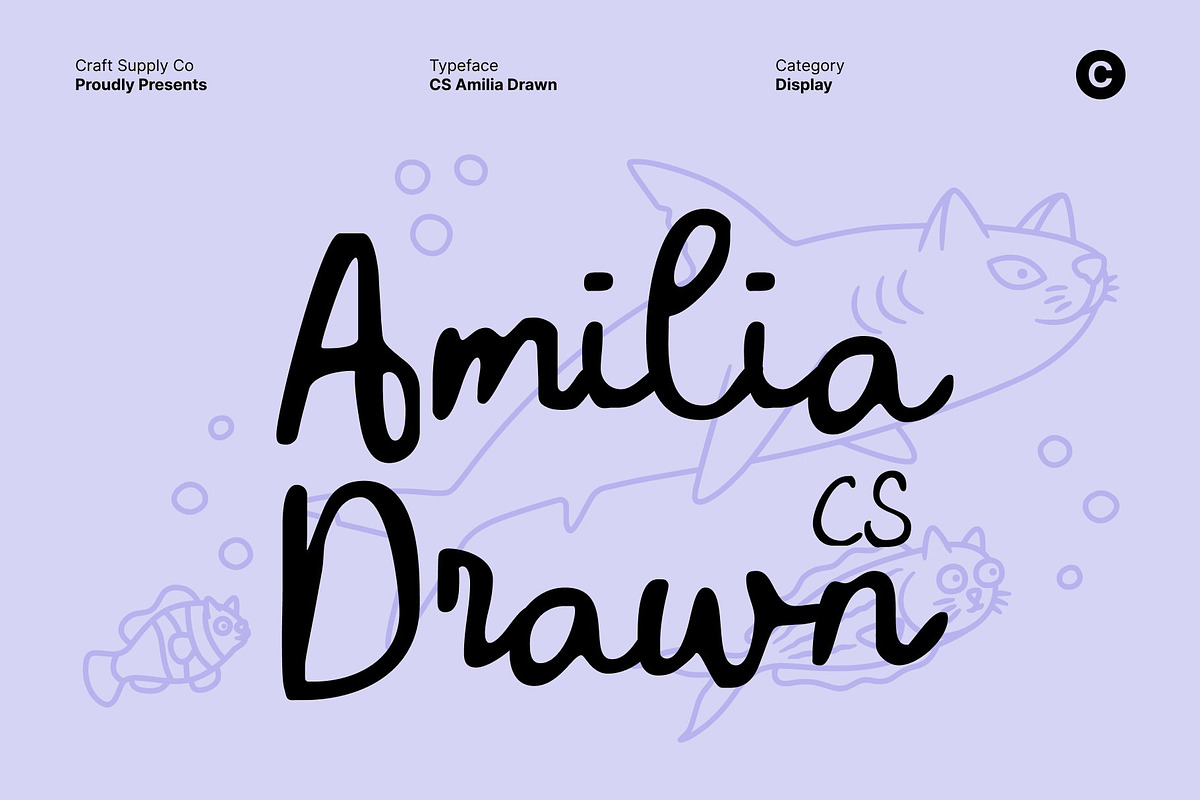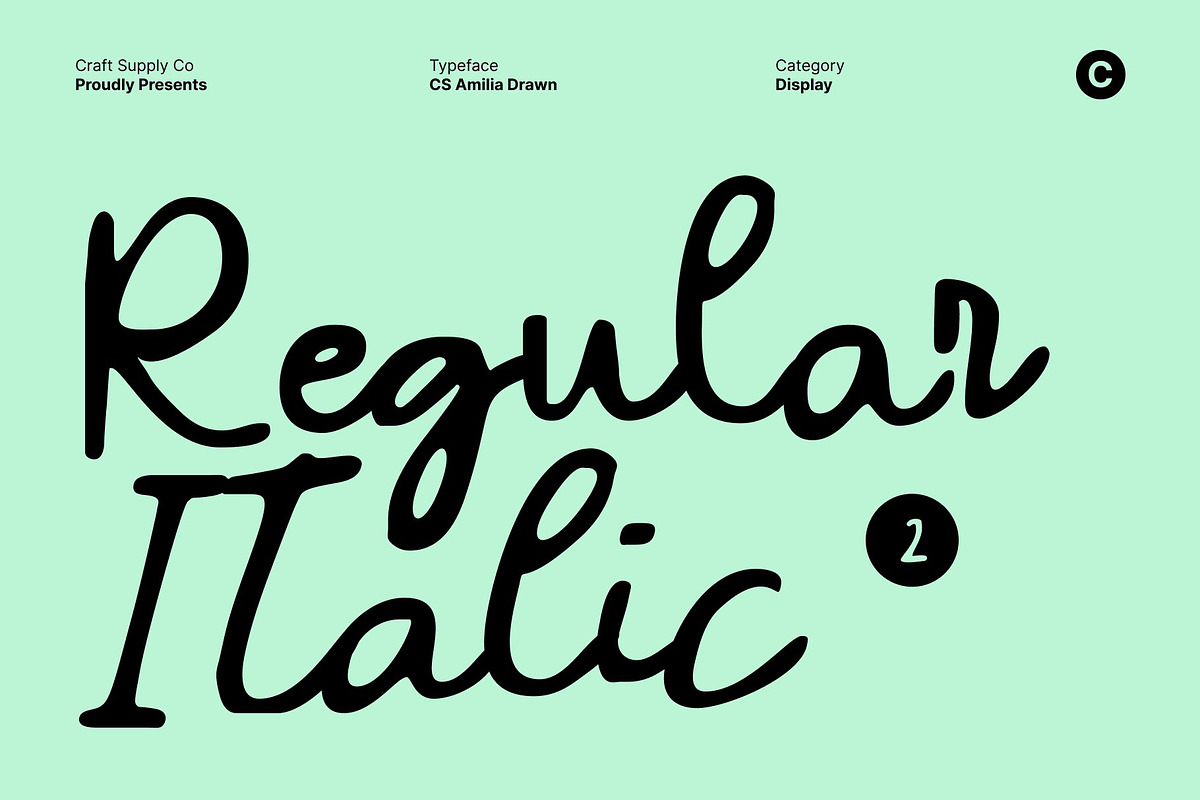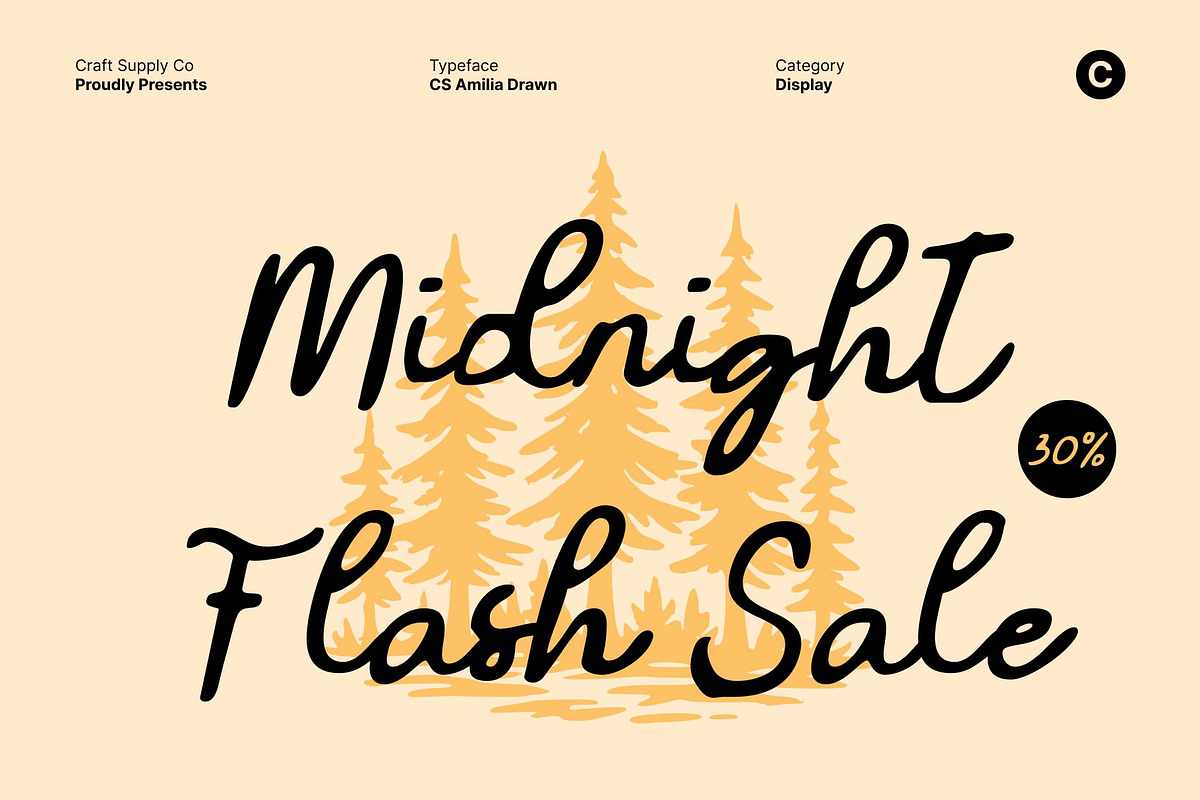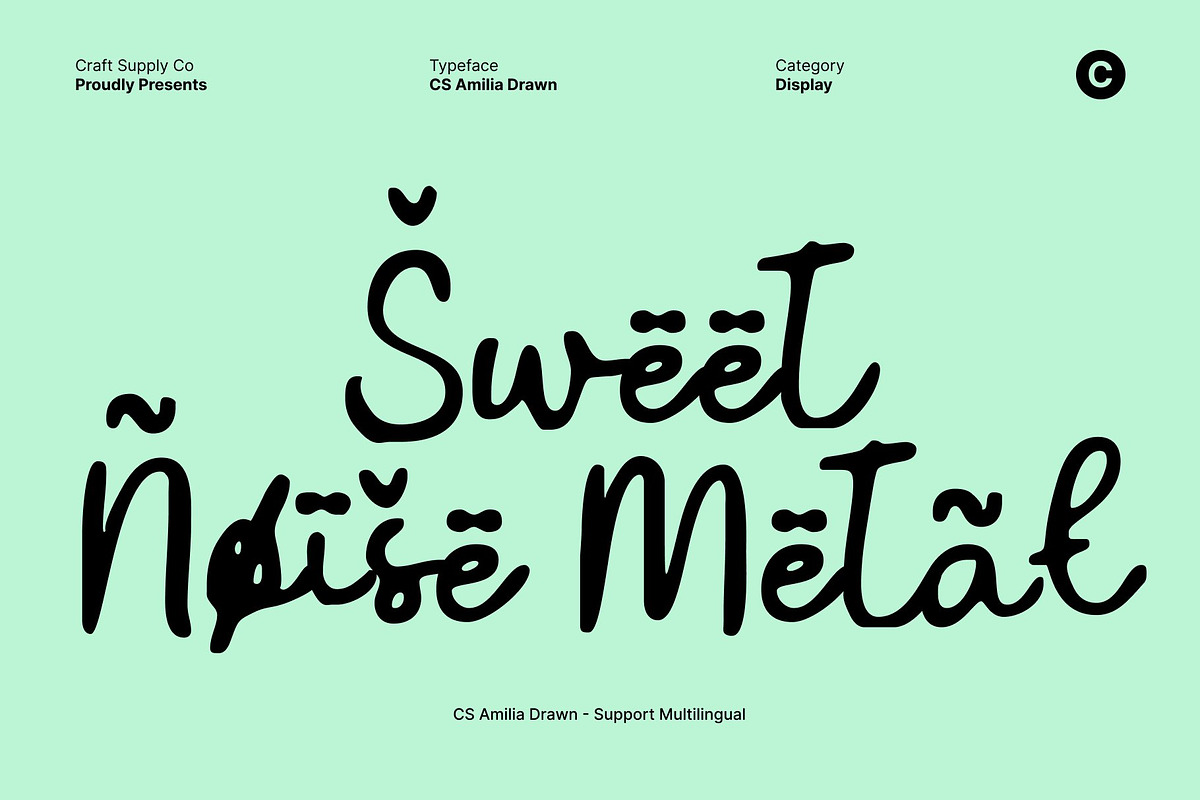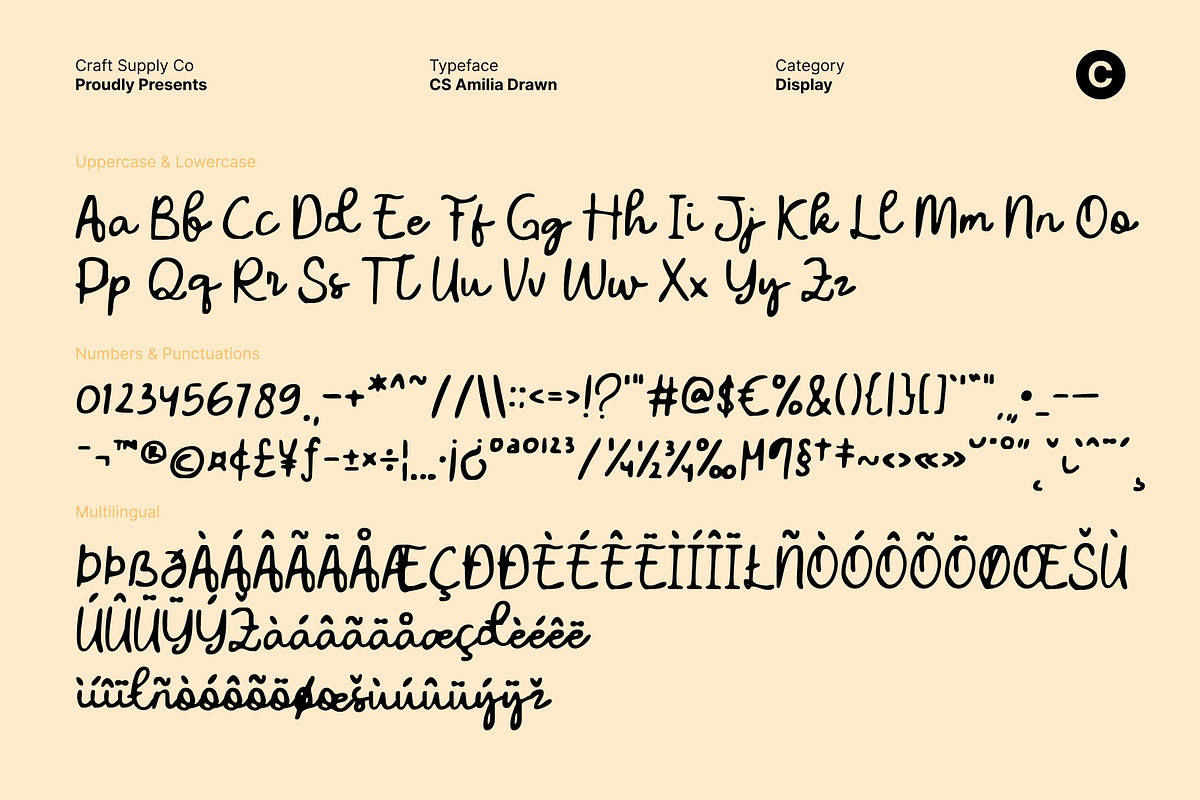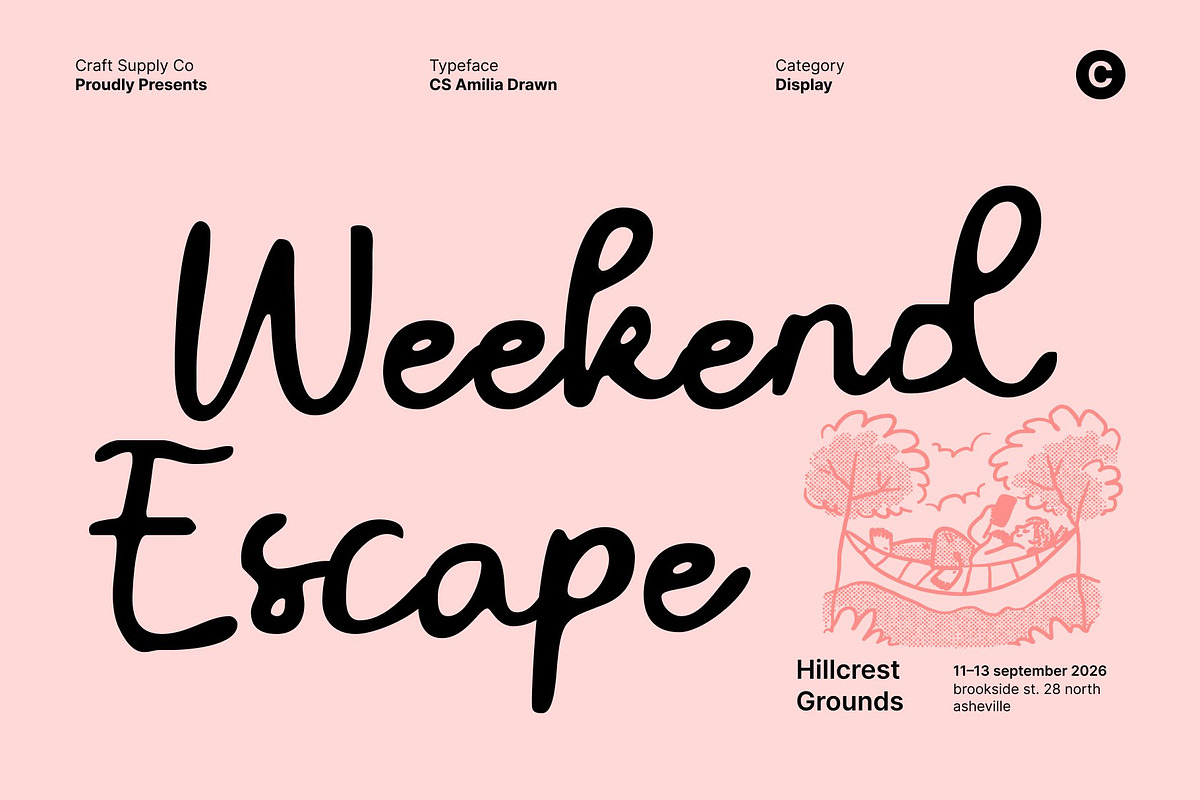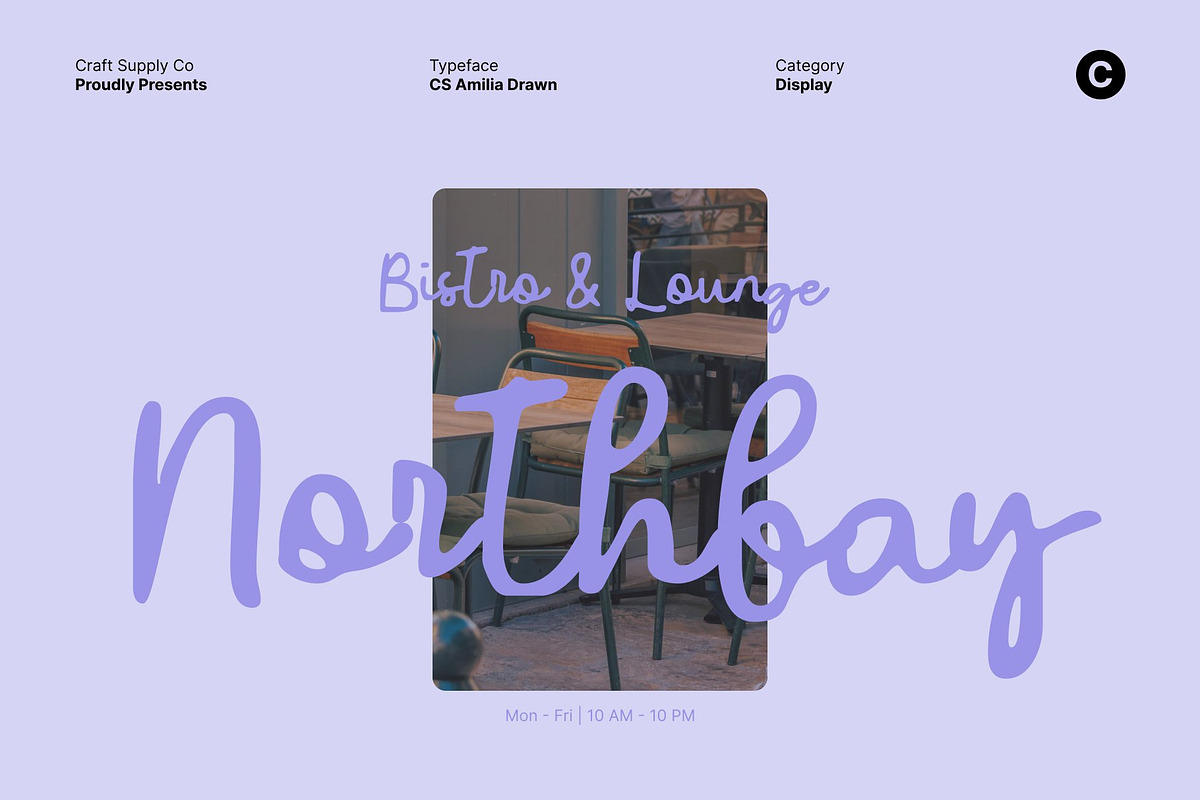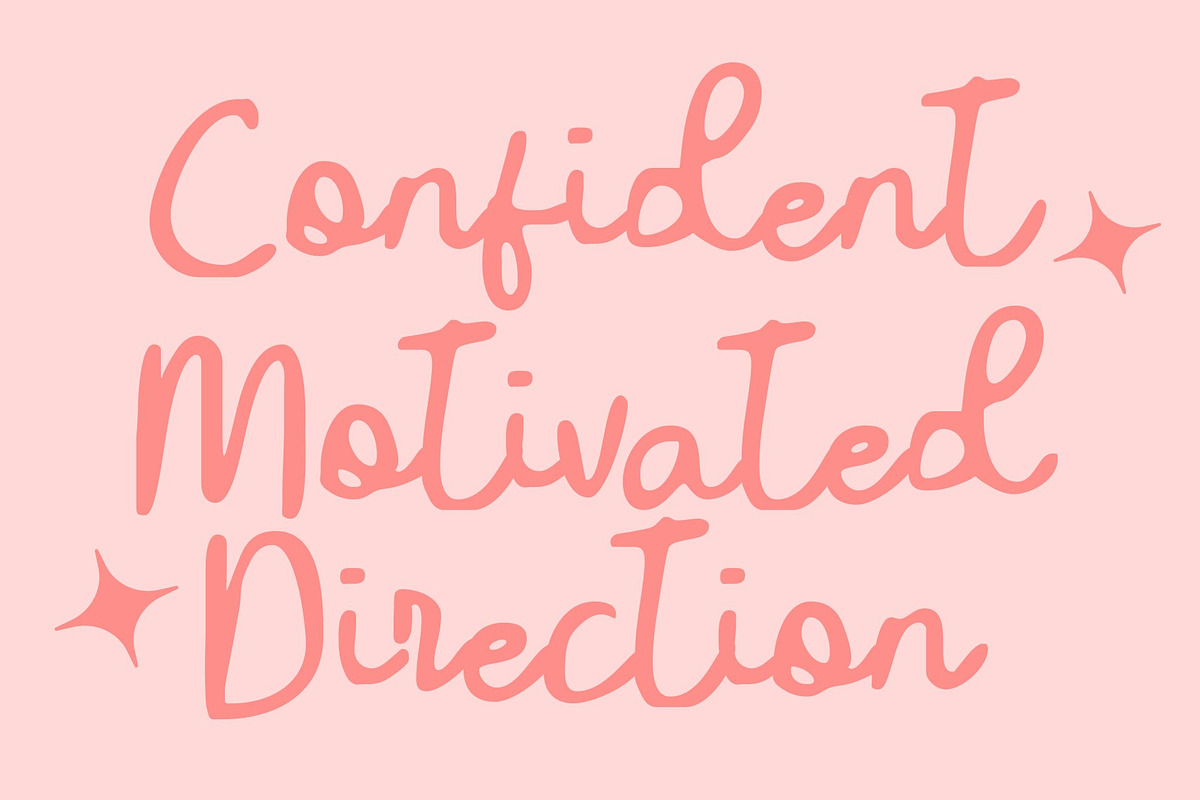
CS Amilia Drawn
CS Amilia Drawn – Artistic Handwritten Script with Elegant Flourishes
Expressive Handcrafted Script This is an artistic handwritten script that combines fluid, expressive strokes with natural, graceful movement. Each character is thoughtfully crafted to emulate the charm and authenticity of hand-drawn lettering, giving your designs a warm, personal, and stylish touch. Its organic flow creates a dynamic yet elegant visual rhythm, perfect for projects that seek personality and sophistication.
Refined Swashes and Decorative Flourishes This font features beautifully designed swashes and ornamental details that elevate its artistic expression. The elegant flourishes enhance legibility while adding a luxurious, handcrafted feel, making every headline, tagline, or accent visually captivating. These decorative elements lend versatility, allowing the font to shine in both bold statements and delicate details.
Ideal for Branding, Signatures, and Boutique Designs This is perfect for creating memorable logos, signature-style branding, and lifestyle-focused design projects. Its sophisticated yet approachable script style conveys elegance, authenticity, and creativity, making it ideal for beauty, fashion, boutique, and artisanal brands.
Perfect for Invitations, Event Design, and Creative Layouts With its romantic, flowing lines and artistic detail, this font is also an excellent choice for wedding invitations, greeting cards, event posters, and other creative compositions. It adds an emotional, handcrafted warmth to every design, ensuring that each message feels personal, stylish, and unforgettable.